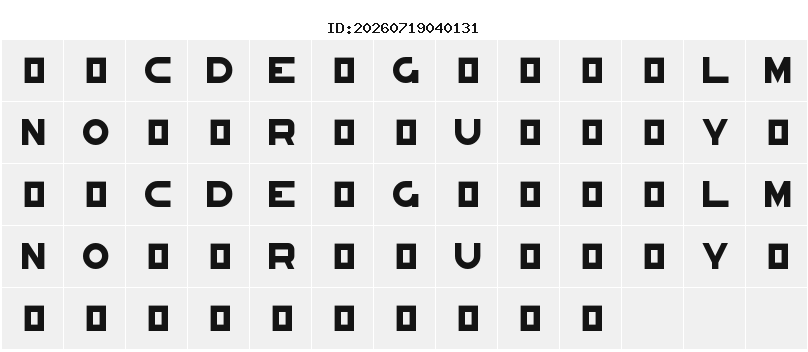
• Font Name: Congruency Demo
• Font ID: Congruency Demo
• Full Font Name: Congruency Regular Demo
• PostScript Name: Congruency-Demo
• Designer: Out Of Step Font Company
About Congruency Demo.ttf
Congruency Demo.ttf is a modern, elegant sans-serif font designed for ultimate readability and visual harmony. Perfect for branding, headlines, web design, and print materials.